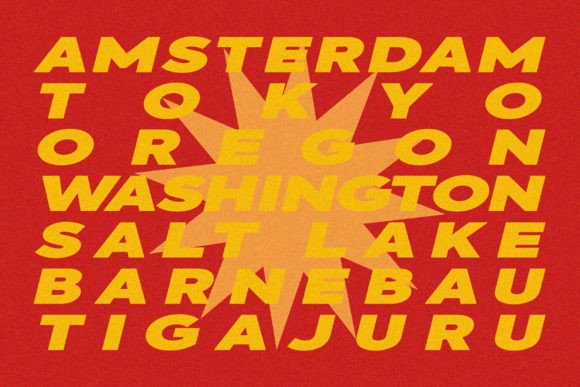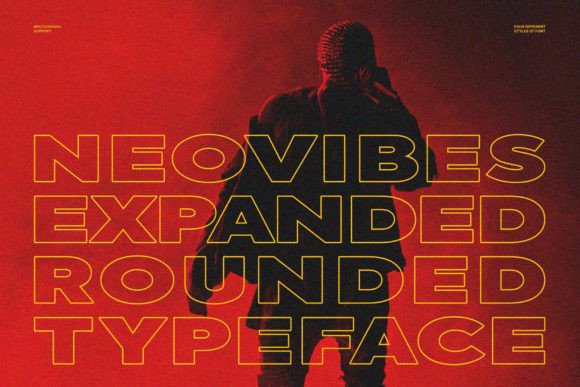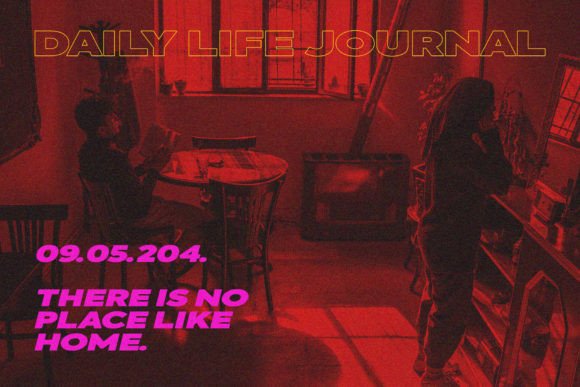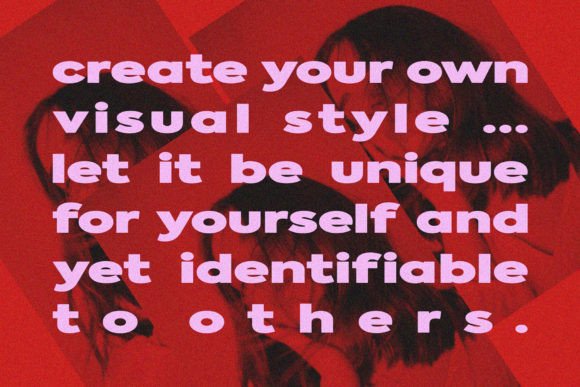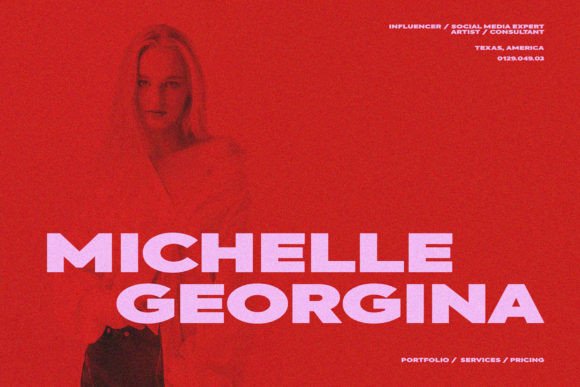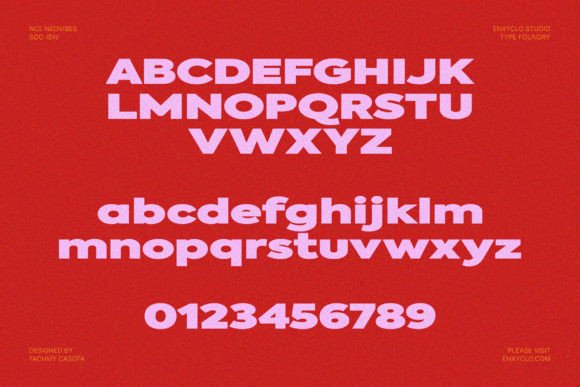
Introduction to Neovibes Font
Have you ever been working on a creative project, pouring your heart and soul into it, only to feel like it’s missing that final spark? You know, that something that sets it apart from the rest and makes it truly unforgettable?
For designers, finding that perfect design resource can be the difference between a good project and a great one. And that’s exactly where the Neovibes Font comes in – a high-quality, bold expanded sans modern font that’s sure to elevate any creative project to new heights.
With its versatility and unique style, the Neovibes Font is perfect for designers looking to add a touch of sophistication and elegance to their work. Whether you’re working on a billboard, magazine, website, or logo, this font is sure to make a lasting impression. And the best part? It’s available for free download, complete with a transparent background, making it easy to integrate into any design project.
Key Features of Neovibes Font
- Designed with a modern aesthetic, the Neovibes Font is perfect for contemporary design projects, such as branding, typography, and digital art.
Honest Review: Neovibes Font
I recently stumbled upon the Neovibes Font, and I must say it’s been a great addition to my design resource library. The font is available for a free download, which is always a plus for designers working on a tight budget.
One of the standout features of the Neovibes Font is its high quality design, which makes it perfect for creative projects that require a touch of sophistication. The font comes in a variety of styles and weights, giving designers plenty of options to choose from.
- ✨ Transparent background option, allowing for seamless integration into designs
- ⚠️ Limited character set, which may not be ideal for designers who need to work with a wide range of languages
- ⚠️ No bold or italic styles available, which may limit its versatility
Overall, I’m impressed with the Neovibes Font and would recommend it to designers working on creative projects that require a touch of elegance. While it has some limitations, its high quality design and free download make it a valuable resource in any designer’s toolkit.
Tips for Getting the Most Out of Neovibes Font
Use the Neovibes Font in combination with other high-quality design elements to create a stunning design. Experiment with different font sizes, colors, and styles to find the perfect look for your project. You can also use the font in conjunction with a transparent background to create a seamless and professional design.
Common Use Cases for Neovibes Font
The Neovibes Font is perfect for creative projects such as brochures, business cards, and presentations. It’s also great for designing social media graphics, logos, and other marketing materials. With its high-quality design and transparent background feature, the Neovibes Font is a versatile and essential design resource for any creative project.